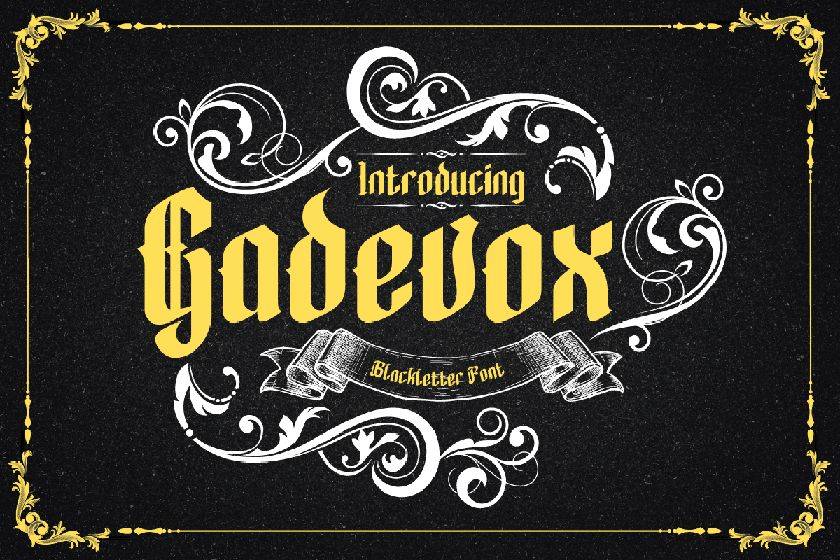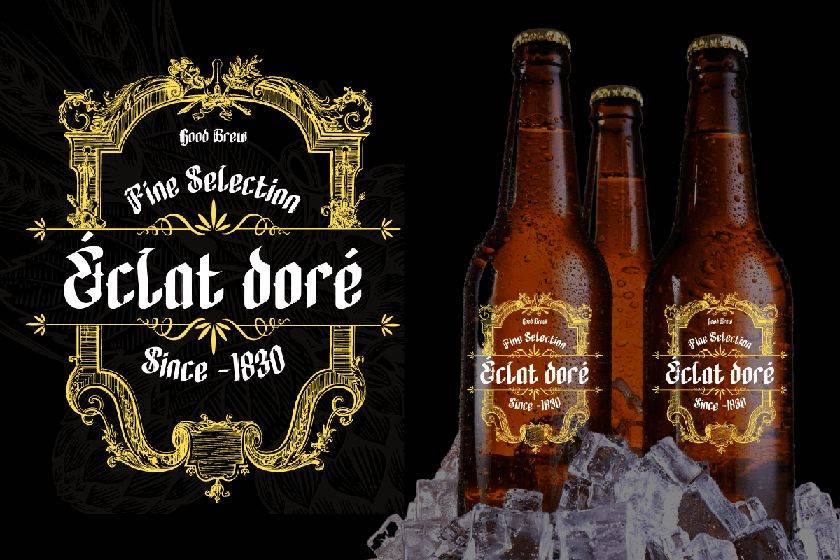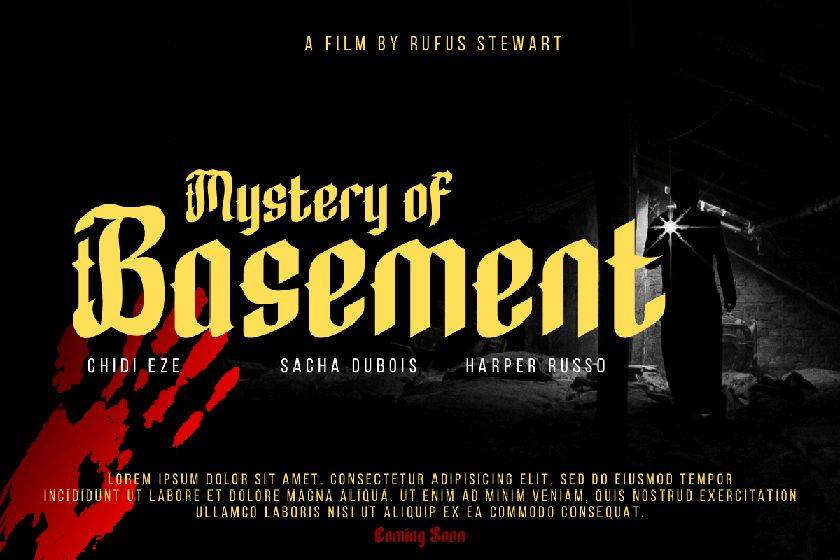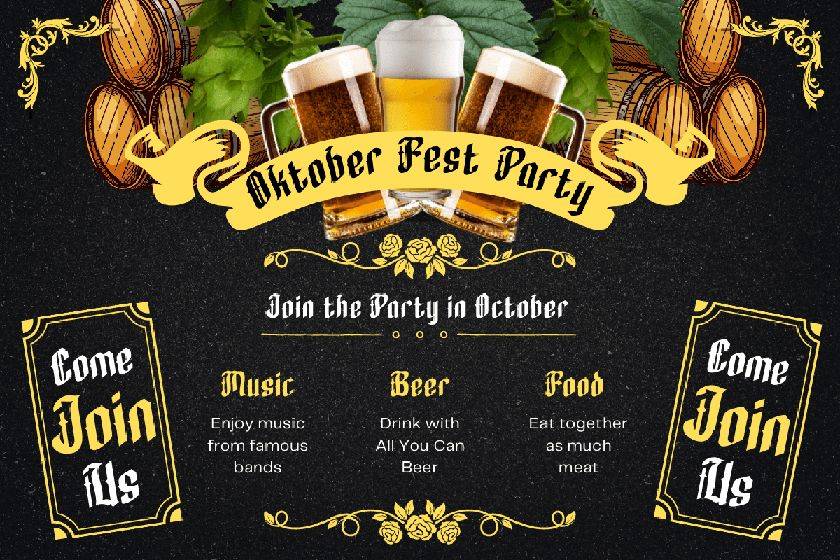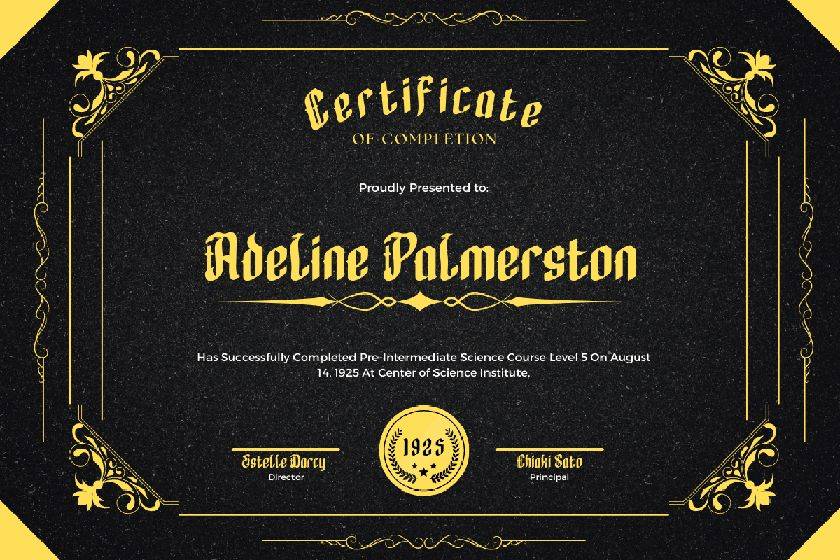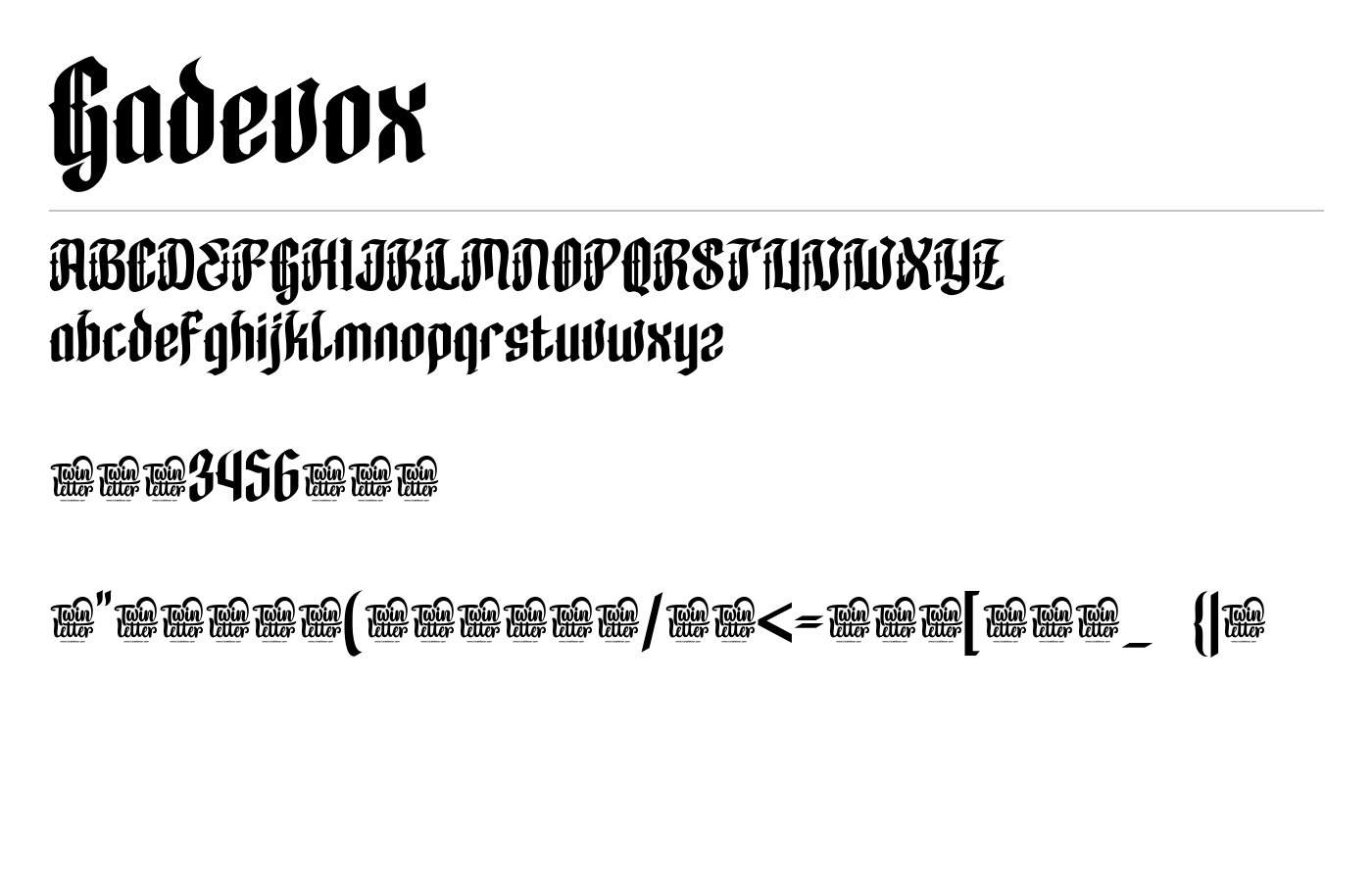
Gadevox is a bold blackletter-style font with strong, angular strokes that give it a gothic and historic feel. Its dense and ornate letterforms make it ideal for creating dramatic and eye-catching headlines or logos, especially for brands or projects seeking a vintage, medieval, or edgy aesthetic. This font stands out for its distinctive personality and works best in display settings rather than body text.
Gadevox Font
About Gadevox Font